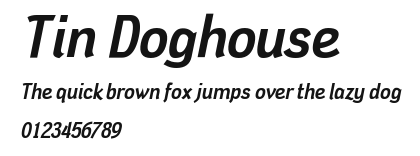
• Font Name: Tin Doghouse
• Full Font Name: Tin Doghouse Italic
• Designer: Darren Rigby
• Manufacturer: Objets Dart
• Description: Inspired by the game "The Hounds of Tindalos" by Michael Selinker, in which the scoring of a word you play is based on the shapes of the letters in the word.
Tin Doghouse.ttf is a modern, elegant sans-serif font designed for ultimate readability and visual harmony. Perfect for branding, headlines, web design, and print materials.